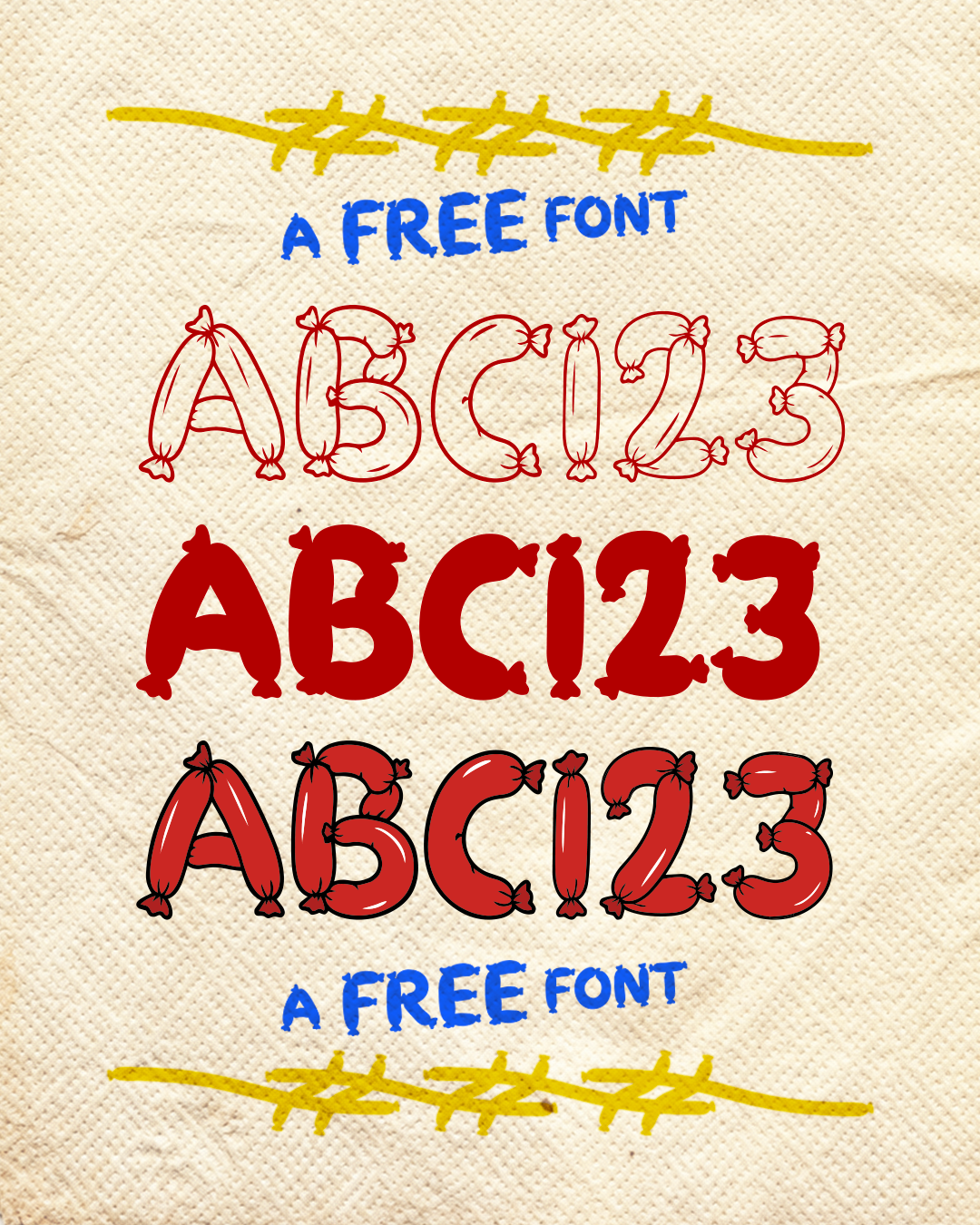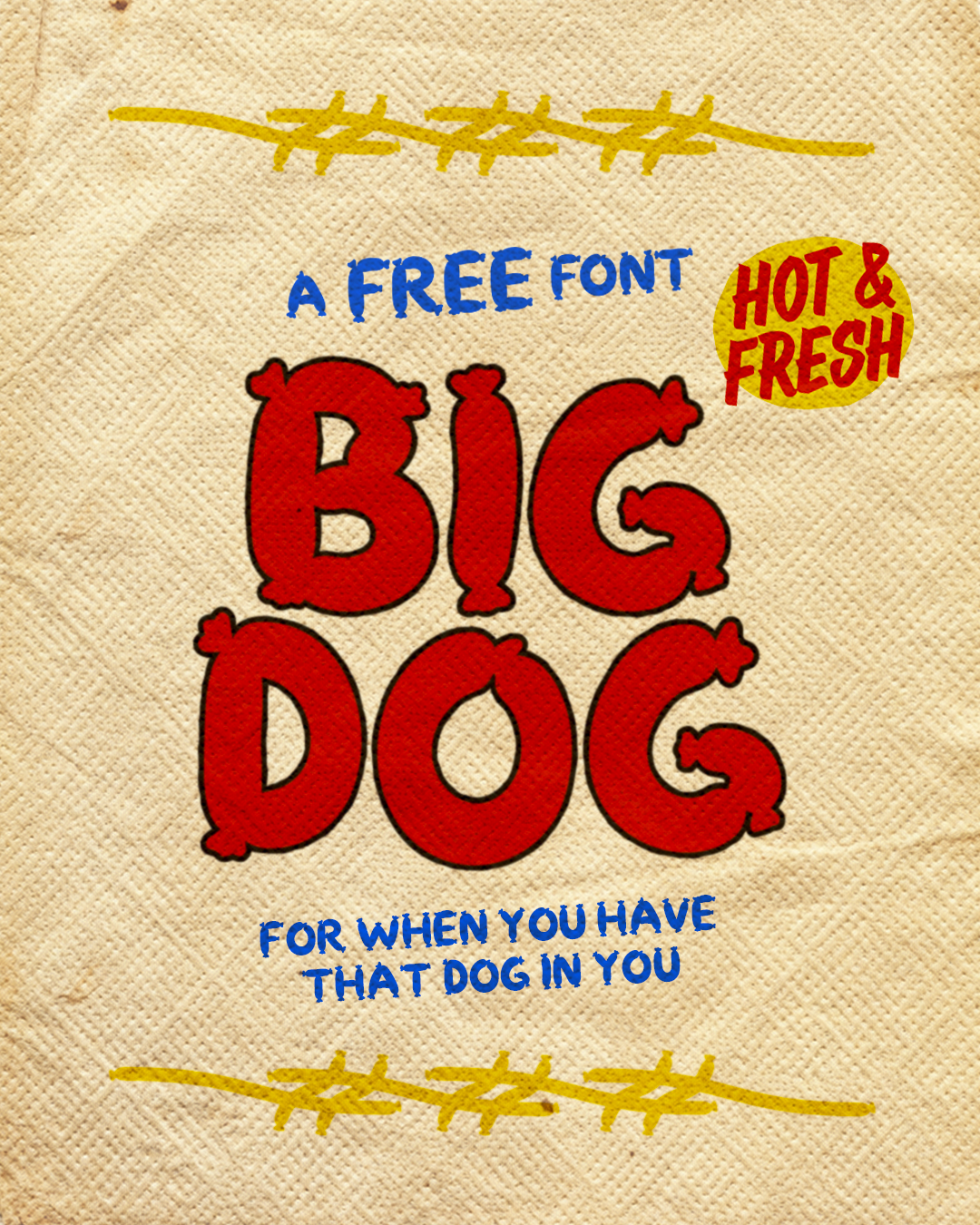
BIG DOG is a free hand-drawn display font built for when you’ve got that dog in you. Every glizzy was drawn by hand, giving each letter its own personality, imperfections, and just the right amount of weird.
The font comes in three different style variations, giving you a few ways to dial in the look depending on the project. It’s bold, playful, and probably more useful than a typeface made out of hot dogs has any right to be.
Use it for posters, apparel, packaging, social graphics, branding, or whatever else calls for a little extra sauce.
I don’t know when you’ll need this font, but when you do, it’ll be just what the doctor called for.